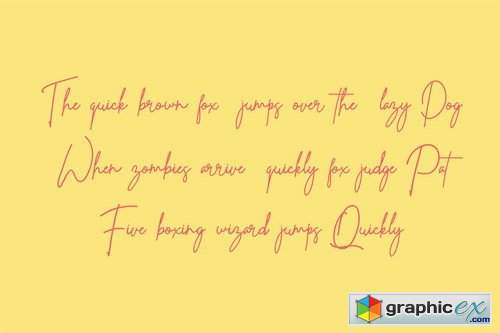
Whistle Casual Signature
Introducing: Whistle - Signature casual handwritten font with personal charm. With a charming sweep that is perfect for branding your product needs and brand name